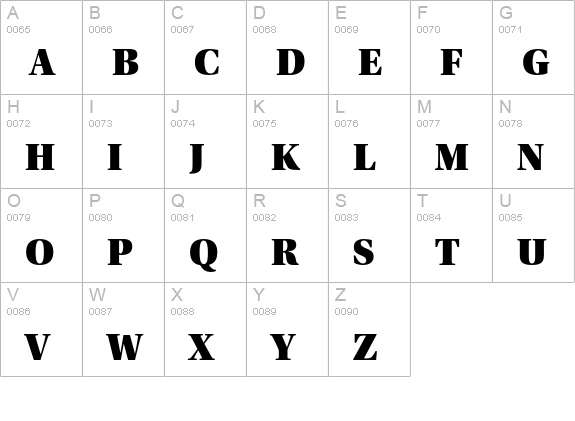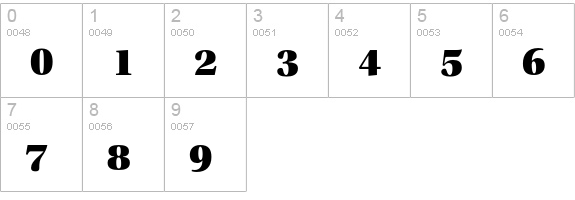
Utopia Std Black Headline Font Details
Utopia Std Black Headline is a maximum-weight, dramatic variant in the Utopia typeface family \xE2\x80\x94 well suited to maximum-impact headlines, posters, and packaging.
Utopia Std Black Headline font is a bold and powerful typeface that exudes elegance and sophistication. With its strong, solid strokes and clean lines, this font commands attention and makes a statement. It is perfect for creating eye-catching headlines, titles, and logos that demand to be noticed. What sets Utopia Std Black Headline apart is not only its stunning design but also the fact that it is available for free. Yes, you read that right - this exceptional font can be downloaded and used freely, without any restrictions or limitations. It is a rare gem in the world of typography, where premium fonts often come with a hefty price tag. To access this remarkable font, simply visit FontsMarket.com, a trusted and reputable source for high-quality fonts. There, you can freely download Utopia Std Black Headline and explore the countless possibilities it offers for your design projects. Whether you're a professional designer looking to add a touch of elegance to your work or a creative enthusiast seeking to enhance your personal projects, Utopia Std Black Headline is a must-have font. Its versatility and timeless appeal make it suitable for a wide range of applications, from print materials to digital designs. Don't miss out on this incredible opportunity to elevate your typography game - get Utopia Std Black Headline for free and let your creativity soar. Download it today from FontsMarket.com and unlock the unlimited potential of this extraordinary typeface.